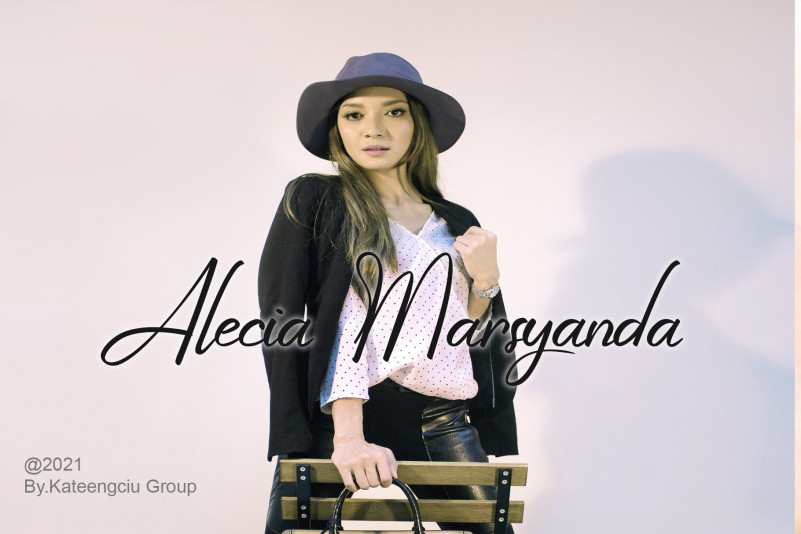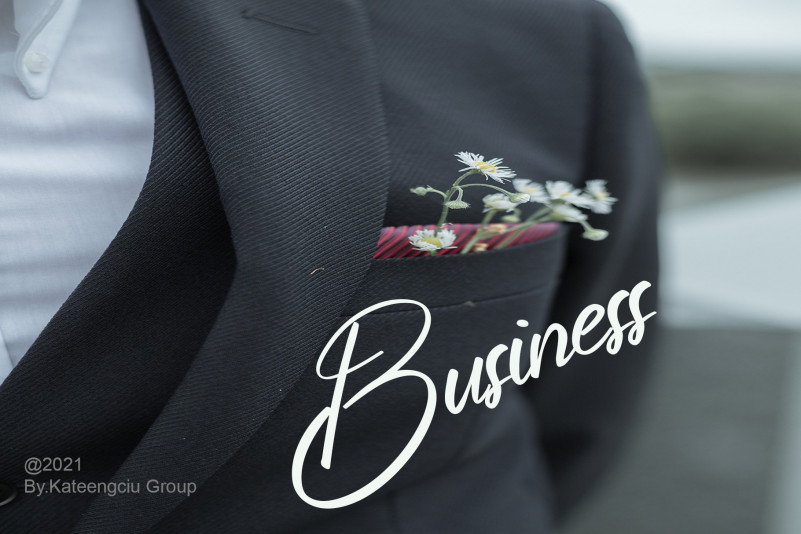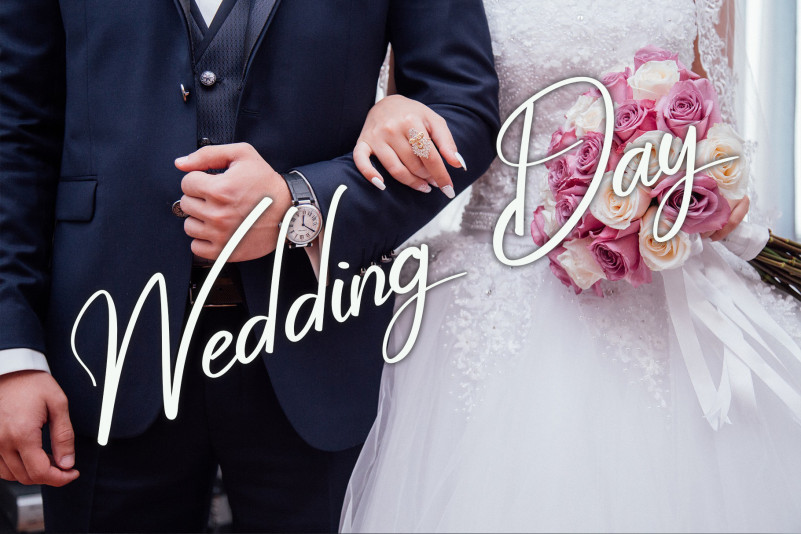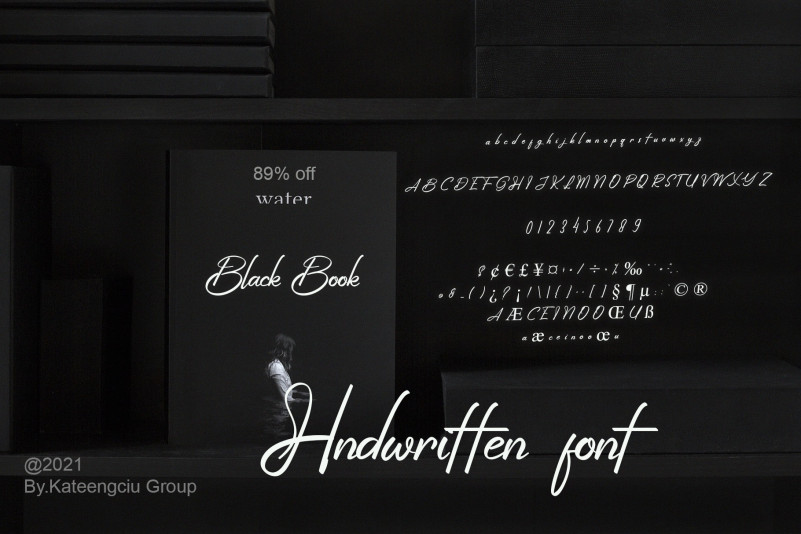
Wonderfuul Bewritten Script Font
Wonderfuul Bewritten Script Font is a great. It maintains its classy calligraphic influences while feeling contemporary and fresh. This versatility will appeal to a wide range of crafty ideas, from letterheads and titles to stationery.